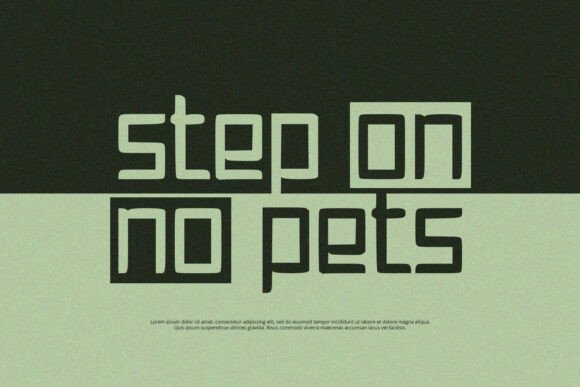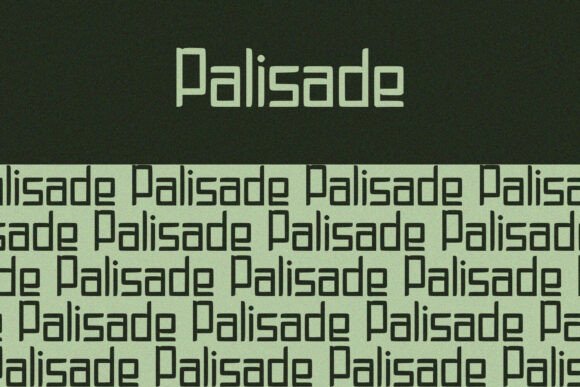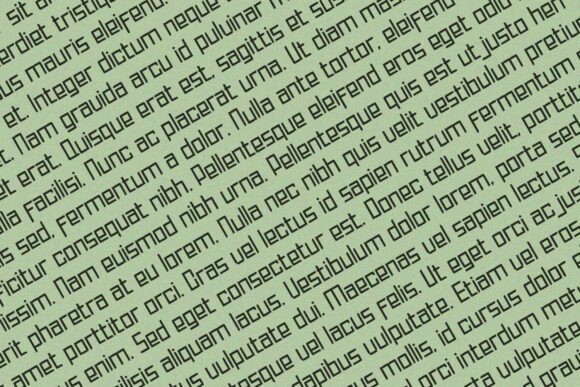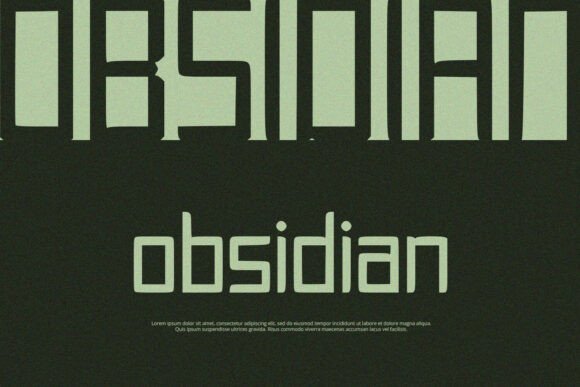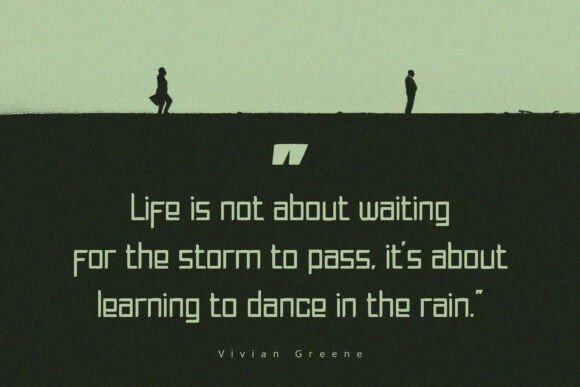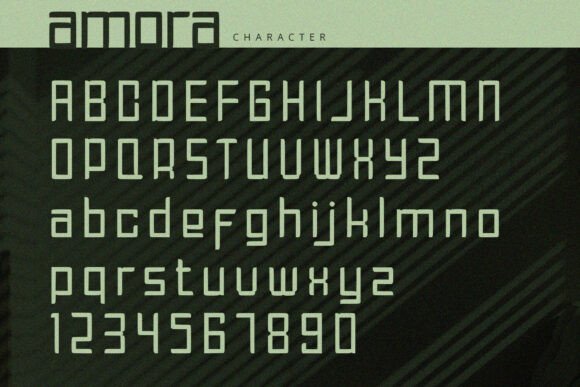
Introducing Amora Font: The Ultimate Bold Display Font for Modern Designers
In the world of typography, fonts play a crucial role in conveying the tone and personality of a brand or design project. For designers and crafters looking for a bold and modern font to make their mark, Amora Font is an excellent choice. This futuristic display font is designed to make a statement, and its versatility makes it perfect for a wide range of applications.
What is Amora Font?
Amora Font is a bold display font that exudes modernity and futurism. Its sleek lines, sharp edges, and geometric shapes give it a cutting-edge look that’s sure to grab attention. The font’s design is carefully crafted to provide a sense of sophistication and elegance, making it ideal for high-end branding, logo design, and other premium applications.
Key Features of Amora Font
- Bold and Eye-Catching: Amora Font is designed to make a statement. Its bold lines and geometric shapes ensure that your text will stand out from the crowd.
- Modern and Futuristic: The font’s futuristic feel makes it perfect for designers and crafters who want to create modern and trendy designs.
- Versatile: Amora Font can be used for a wide range of applications, from branding and logo design to lettering, logotype, and packaging.
- High-Quality: The font is carefully crafted to provide a high level of legibility and readability, ensuring that your text will look great in any context.
Use Cases for Amora Font
Amora Font is an incredibly versatile font that can be used for a wide range of design projects. Here are some examples of how you can use this amazing font:
- Branding: Use Amora Font to create bold and memorable brand identities that will help your business stand out.
- Logo Design: The font’s geometric shapes and modern feel make it perfect for creating unique and eye-catching logos.
- Lettering: Amora Font is ideal for creating stunning lettering pieces that will add a touch of elegance to any design.
- Logotype: Use the font to create custom logotypes that will help your brand build a strong visual identity.
- Clothing: Amora Font is perfect for designing t-shirts, hoodies, and other clothing items that require bold and eye-catching typography.
- Posters: The font’s bold lines and geometric shapes make it ideal for creating stunning posters that will grab attention.
- Magazines: Use Amora Font to create eye-catching headlines and titles that will add a touch of modernity to your magazine designs.
- Packaging: The font’s futuristic feel makes it perfect for designing packaging that will stand out on store shelves.
- Shopping Bags: Amora Font is ideal for designing reusable shopping bags that will help your brand build a strong visual identity.
- T-Shirts: The font’s bold lines and geometric shapes make it perfect for designing custom t-shirts that will make a statement.
- Book Covers: Use Amora Font to create stunning book covers that will grab attention and convey the tone of your book.
- Photography: The font’s modern feel makes it perfect for designing photography titles and captions that will add a touch of elegance to your photos.
- Special Events: Amora Font is ideal for designing event branding, invitations, and other materials that require bold and eye-catching typography.
Why Choose Amora Font?
With so many fonts available, why choose Amora Font? Here are a few reasons why this font stands out from the crowd:
- Unique Design: Amora Font has a unique design that’s sure to grab attention.
- High-Quality: The font is carefully crafted to provide a high level of legibility and readability.
- Versatile: Amora Font can be used for a wide range of applications, making it a great value for designers and crafters.
Amora Font is an amazing bold display font that’s perfect for designers and crafters who want to create modern and futuristic designs. Its versatility, high-quality design, and ease of use make it an excellent choice for a wide range of applications. Whether you’re designing a brand identity, creating a logo, or working on a packaging project, Amora Font is sure to make a statement.